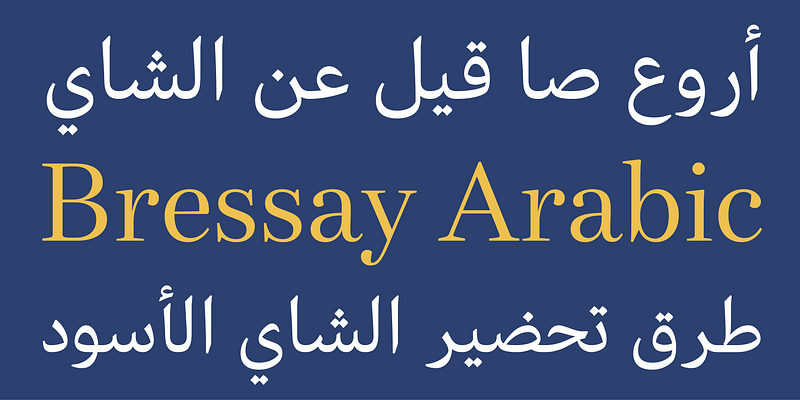
Bressay Arabic Font Free Download is a refined and contemporary Arabic typeface that blends traditional calligraphic influence with modern design sensibility. Designed for readability and elegance, Bressay Arabic is ideal for editorial projects, branding, book covers, cultural content, and digital interfaces requiring both Arabic and Latin script harmony.
With its carefully balanced proportions and smooth letterforms, Bressay Arabic offers a professional and sophisticated aesthetic that adapts beautifully to both headline and body text settings. It supports full Arabic character sets, along with multilingual Latin support, making it a great choice for international and bilingual design projects.